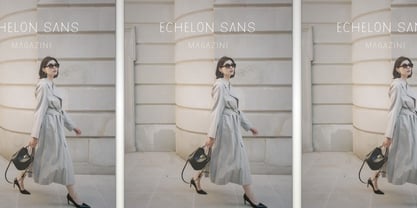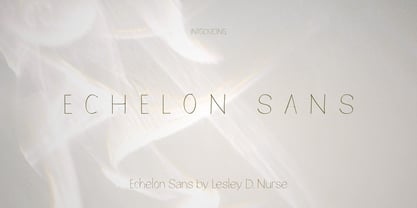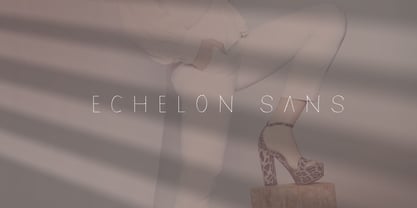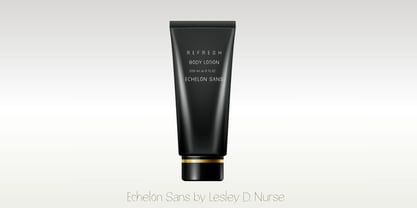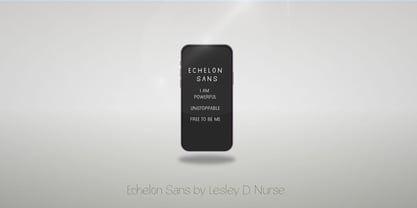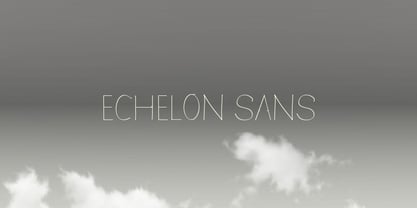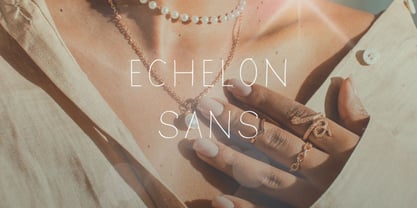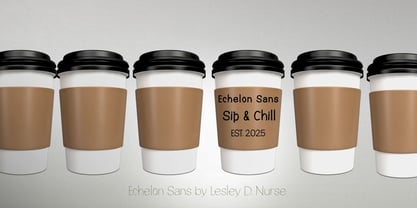
Echelon Sans
The Echelon Sans Font Family was designed by Lesley Nurse and published by LDN Surface & Co.. Echelon Sans contains 1 styles. More about this family
Echelon Sans Font – Where Minimalism Meets High-End Design.
The Echelon Sans Font is a luxurious typeface designed to convey power, elegance, and refined sophistication. Its clean lines, geometric precision, and contemporary aesthetic make it the perfect choice for luxury branding, high-end editorial projects, architectural publications, and premium retail packaging.
From chic fashion magazines and upscale coffee packaging to modern art installations and distinguished shopping bags, Echelon Sans elevates every project it touches. Ideal for those with a taste for the exceptional, this font embodies both clarity and boldness, providing a distinctively modern appeal with a touch of timeless beauty.
Whether used for minimalist logo designs or luxurious promotional materials, Echelon Sans is crafted to make a lasting impression. Its versatile structure and effortless elegance seamlessly blend into luxury designs, bringing a sense of prestige and sophistication to every application.